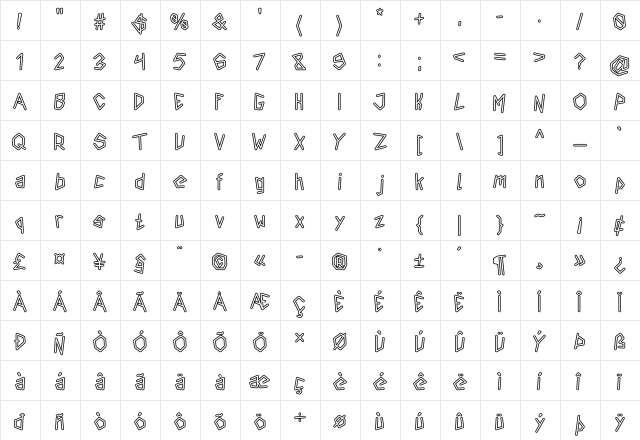
Insurgence Outline Regular
Design Context for Insurgence Outline Typeface
Insurgence Outline brings ornamental detail and strong personality to headlines and identities, where visual impact matters more than quiet functionality.
Font Pairing: Pair with a clean neutral sans-serif for body copy to let Insurgence Outline's character lead without overwhelming the composition.
Pro Tip: Use Insurgence Outline exclusively at display sizes — it was designed to be seen, not read at length. Let a neutral companion handle body copy.